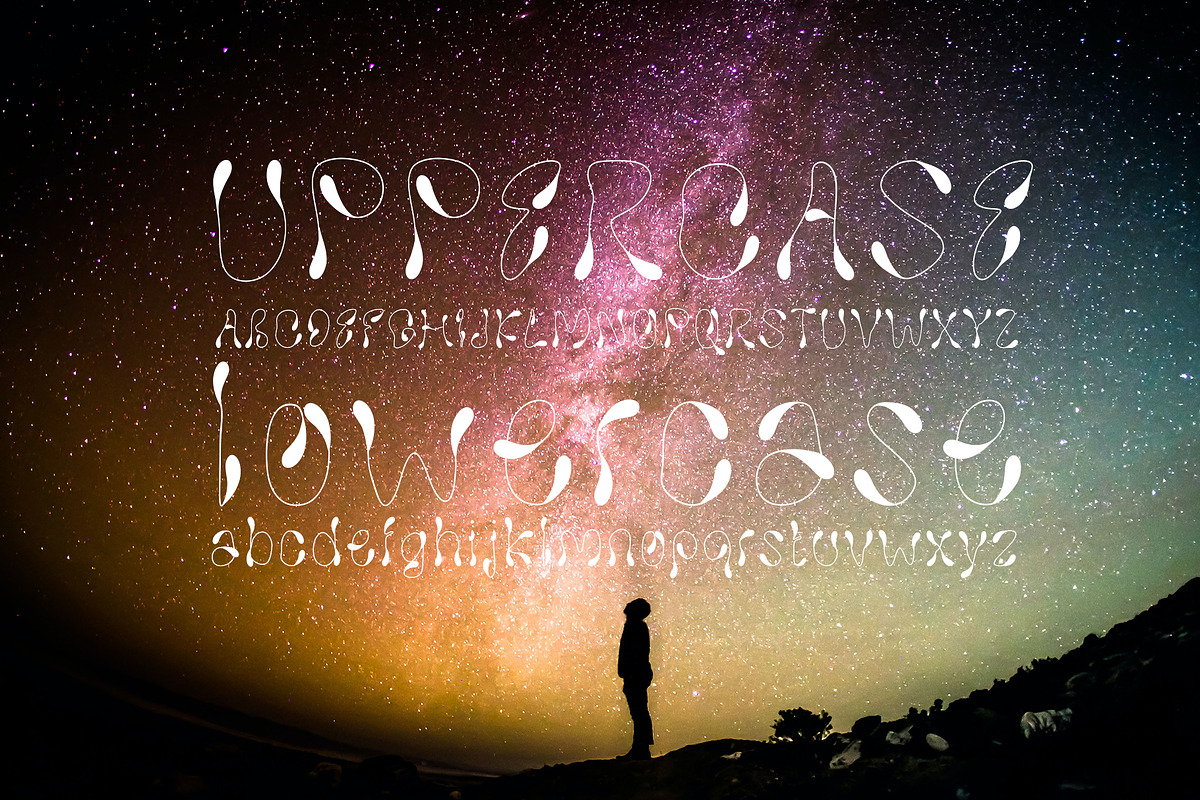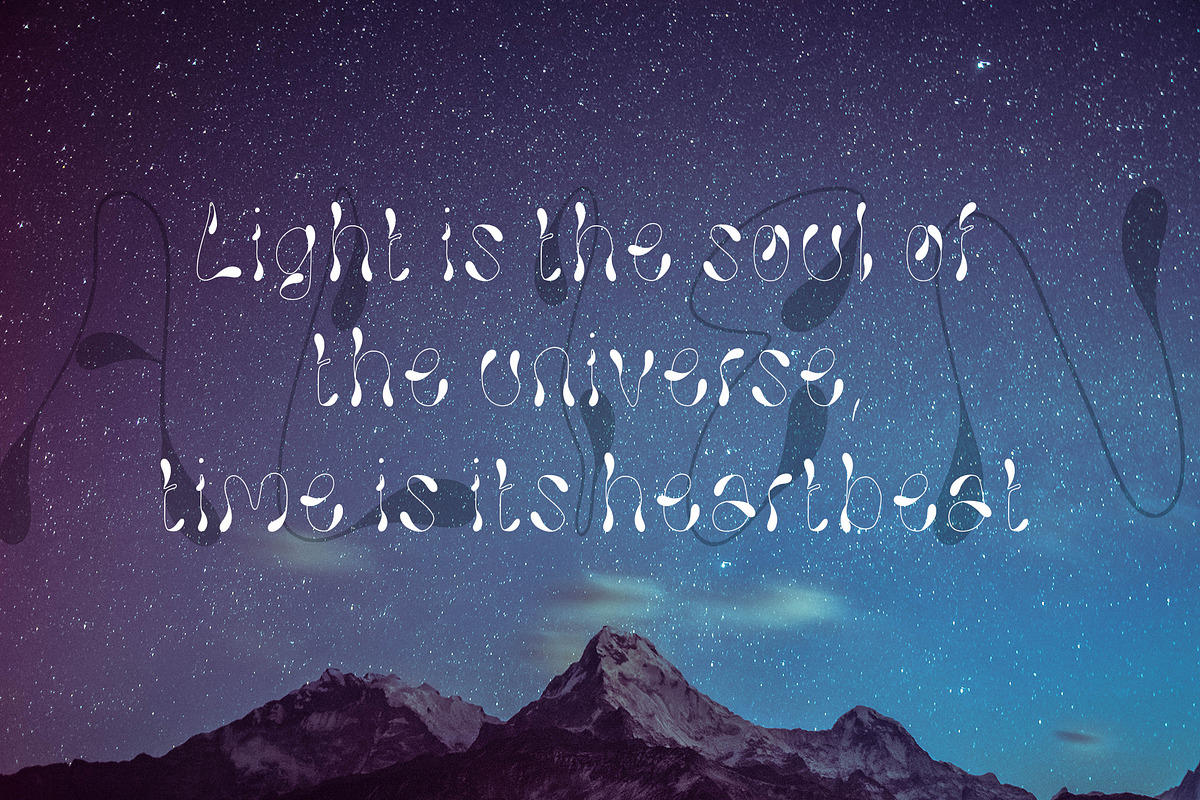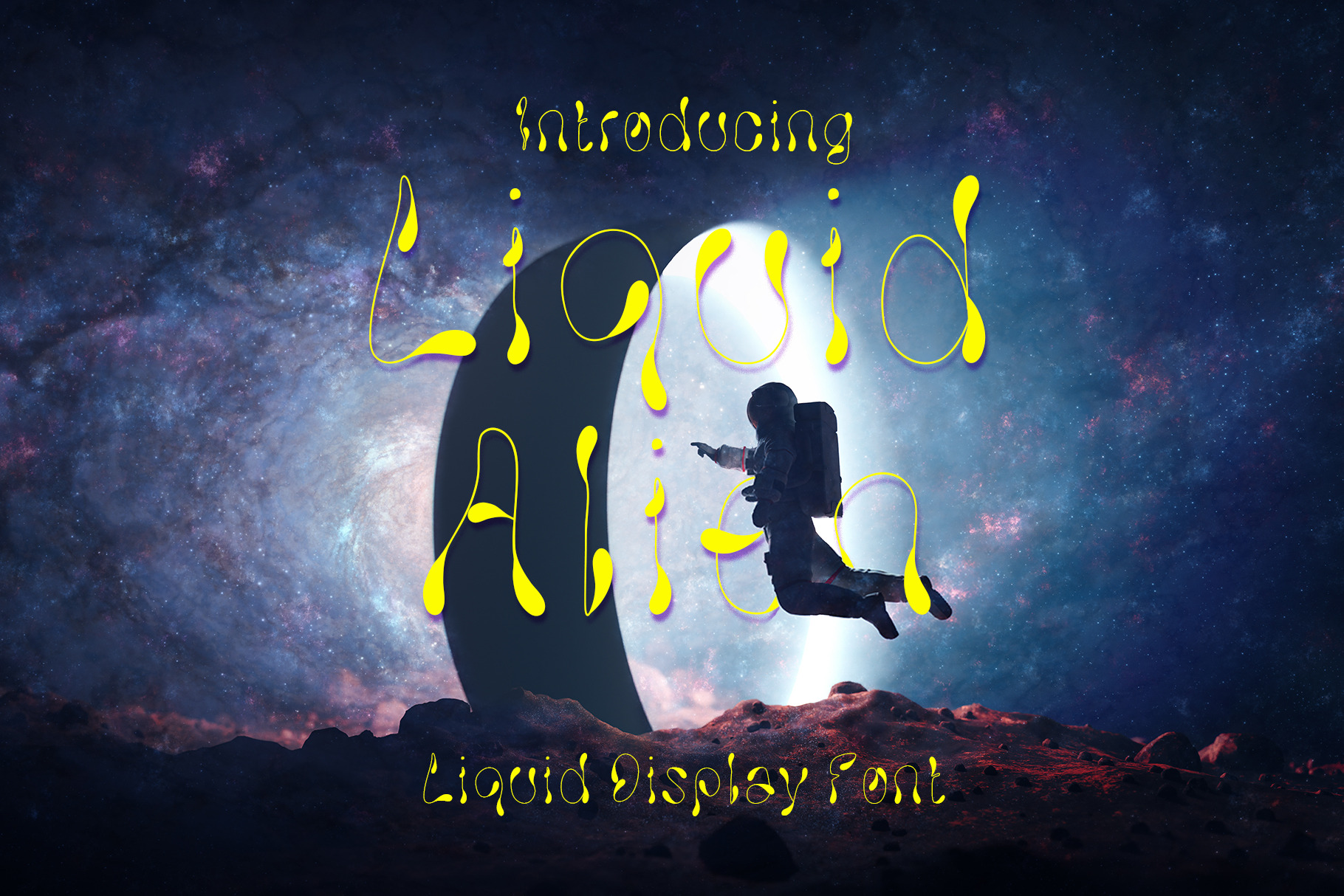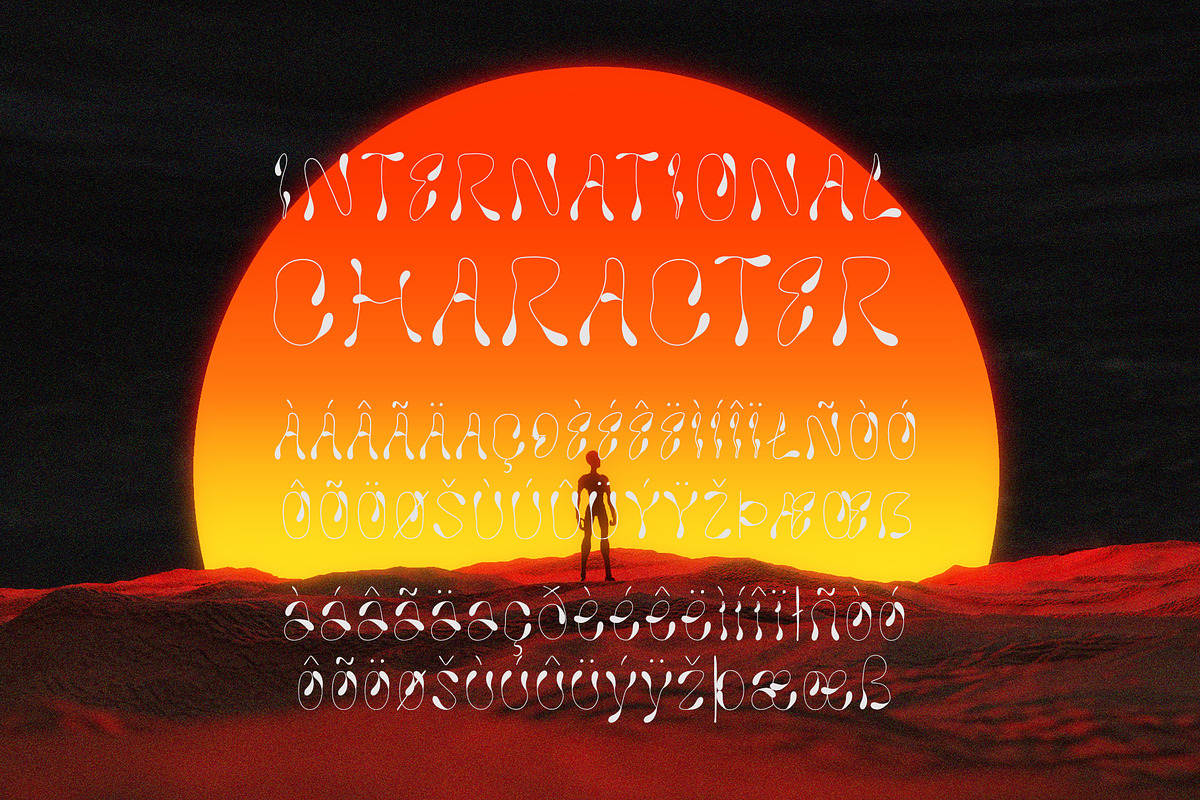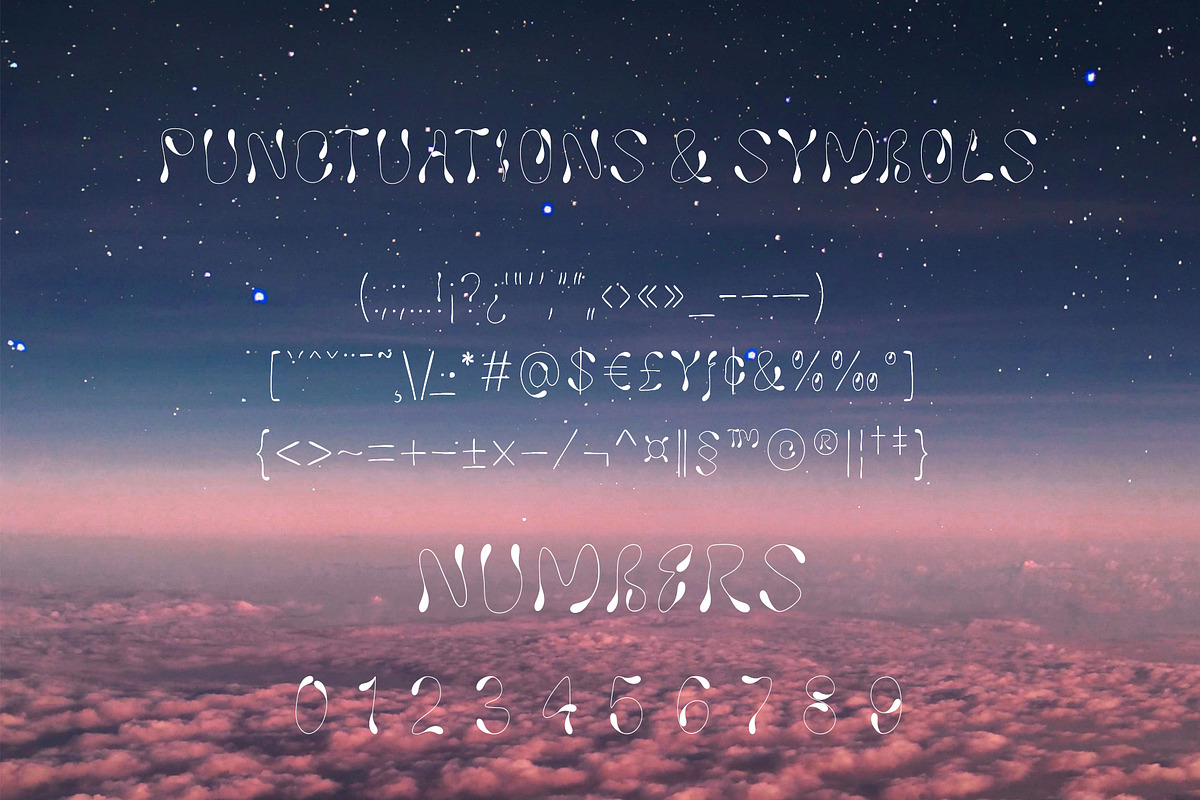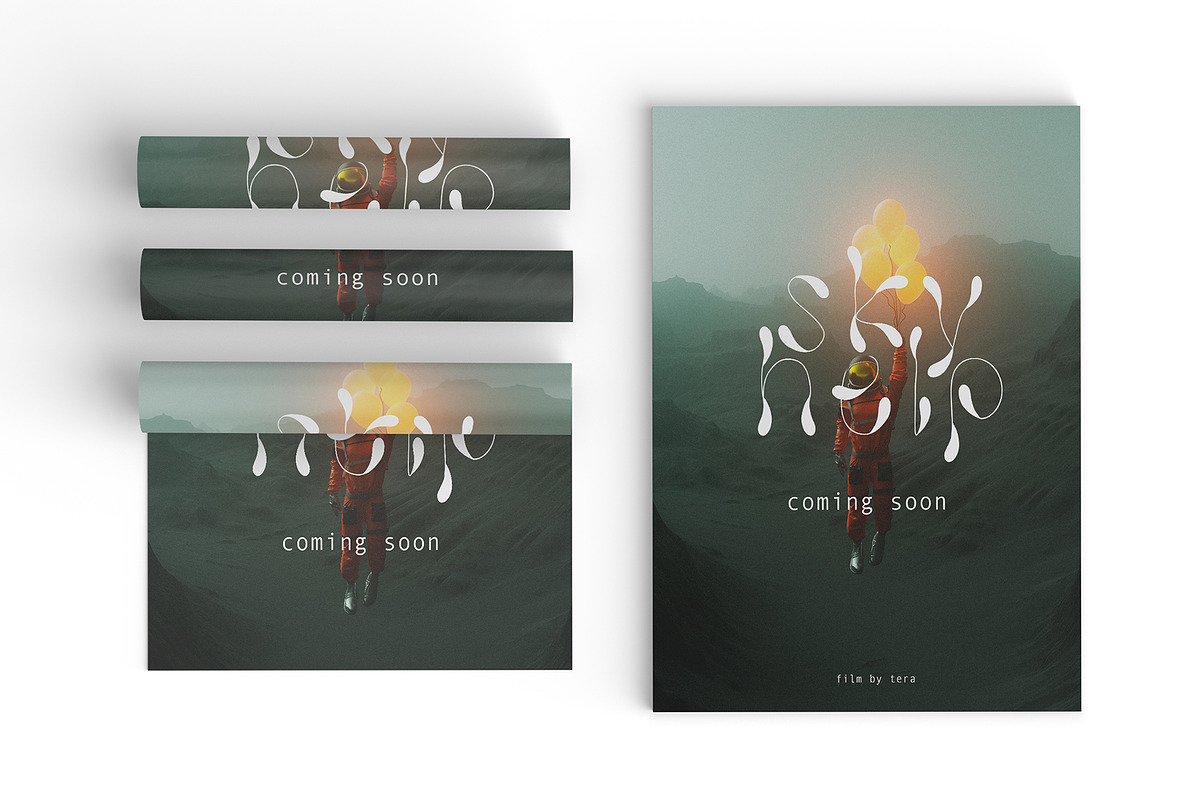
Liquid Alien Display Font
Liquid Alien is a modern font that embodies a unique and futuristic design. In this font, each letter and character takes the shape of flowing liquid, giving an unconventional organic impression.
With the advancement of modern design, the Liquid Alien font offers an opportunity for designers to bring a fresh and contemporary style to their projects. With its flowing and attention-grabbing forms, this font can create a distinct and striking impression in graphic designs, posters, branding, and more.
By using the Liquid Alien font in your design journey, you will bring a touch of modernity, visual exploration, and a prominent futuristic impression. This font opens up possibilities for unlimited experimentation and creativity in shaping unique and different visual communication from others.